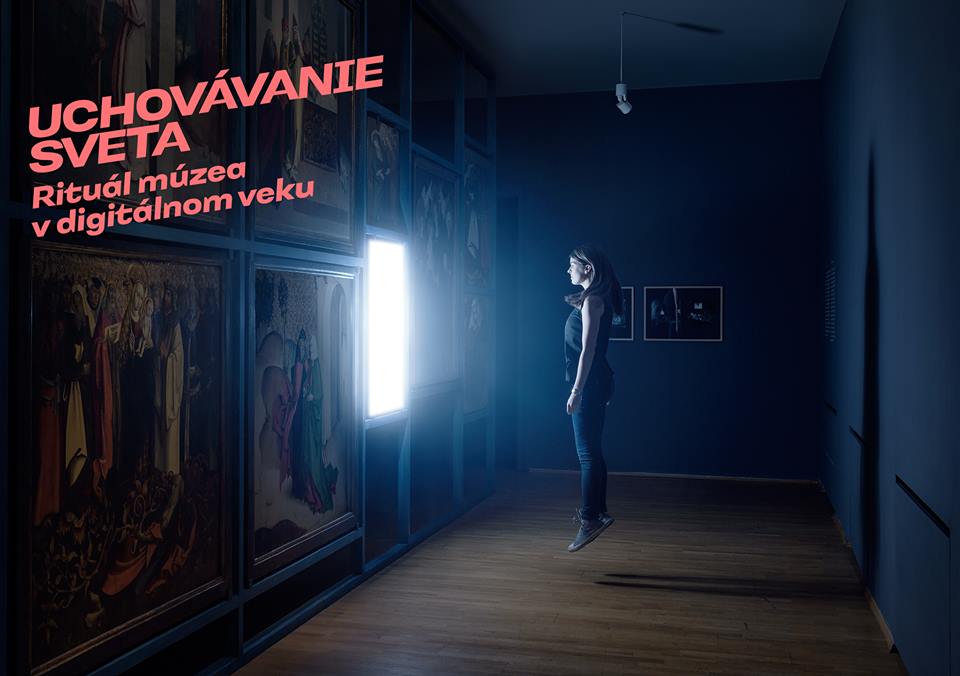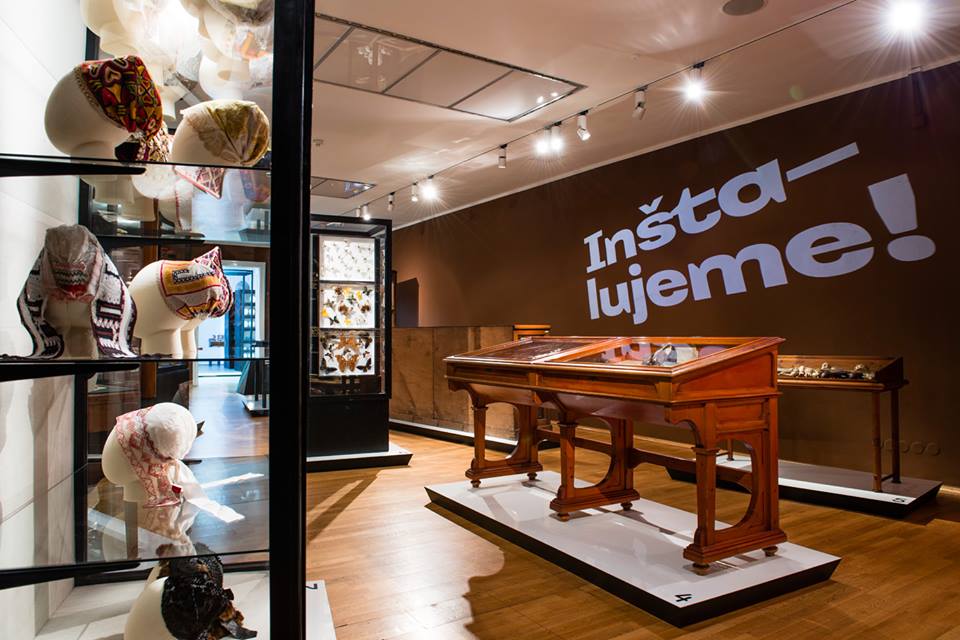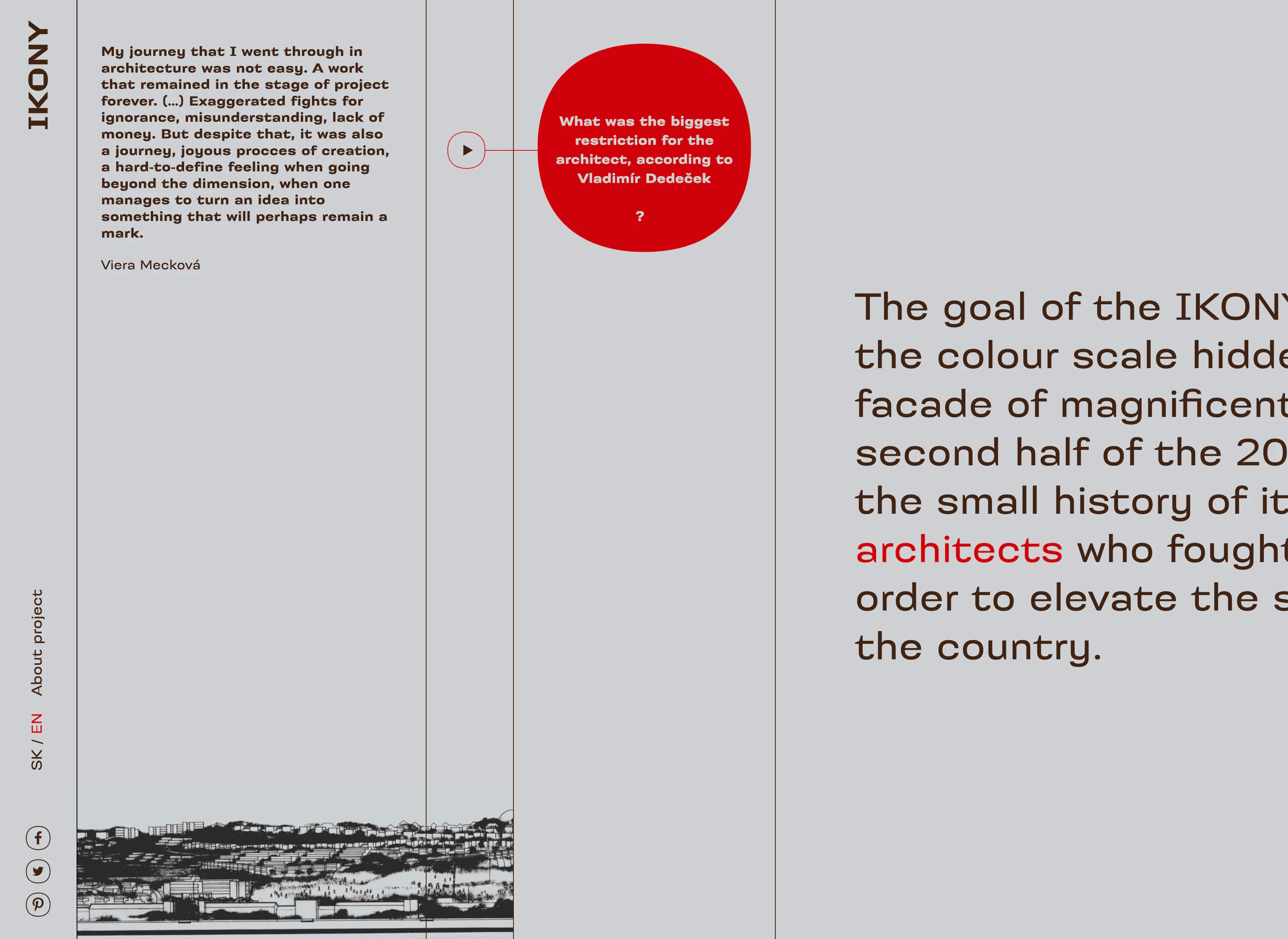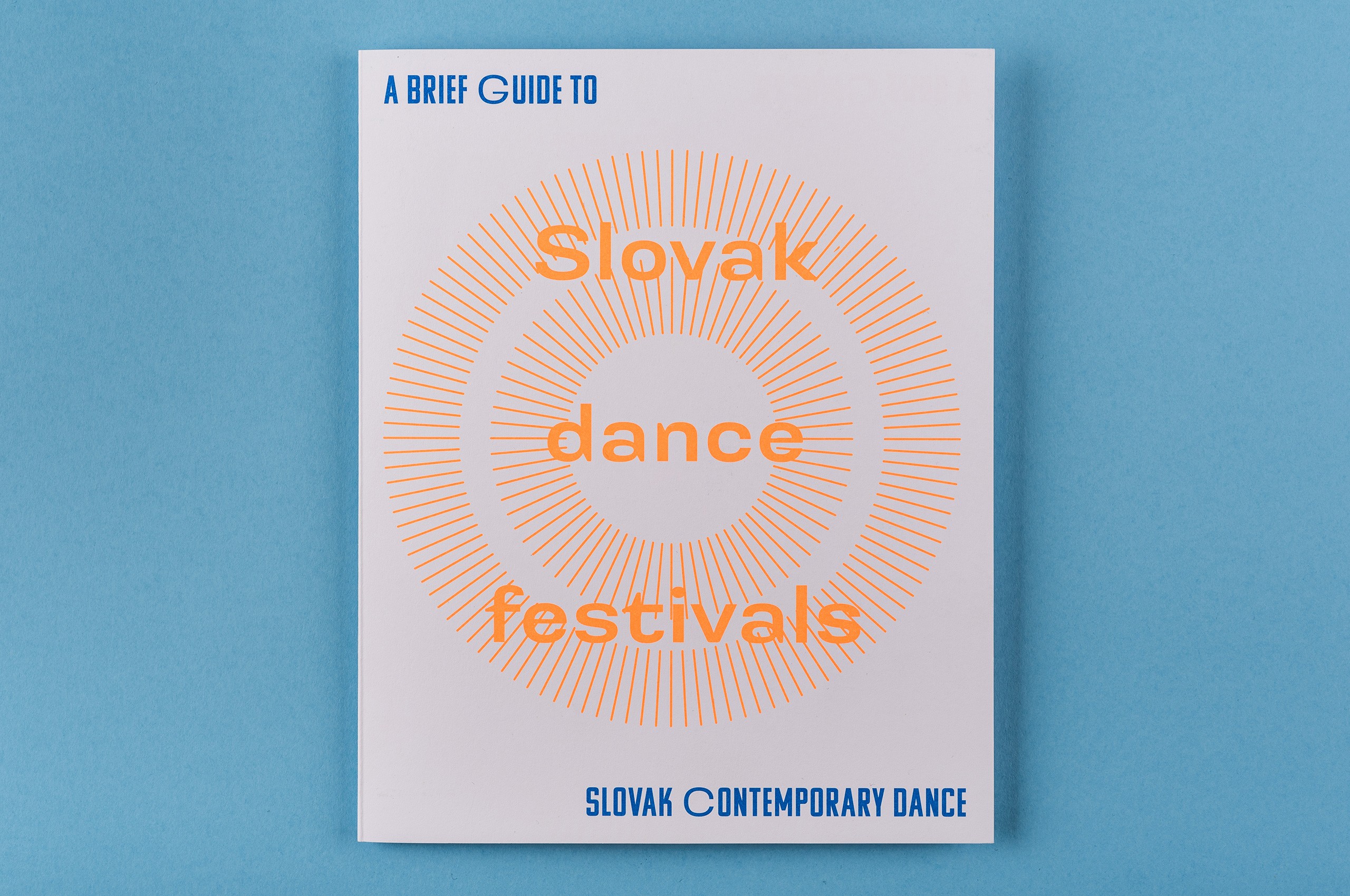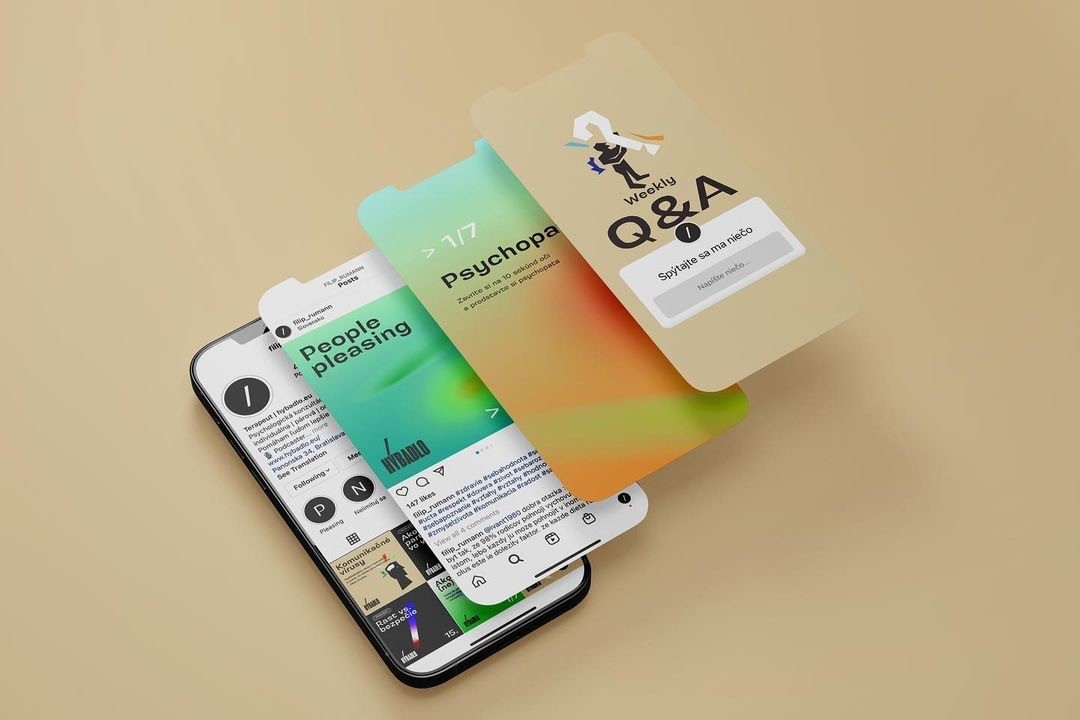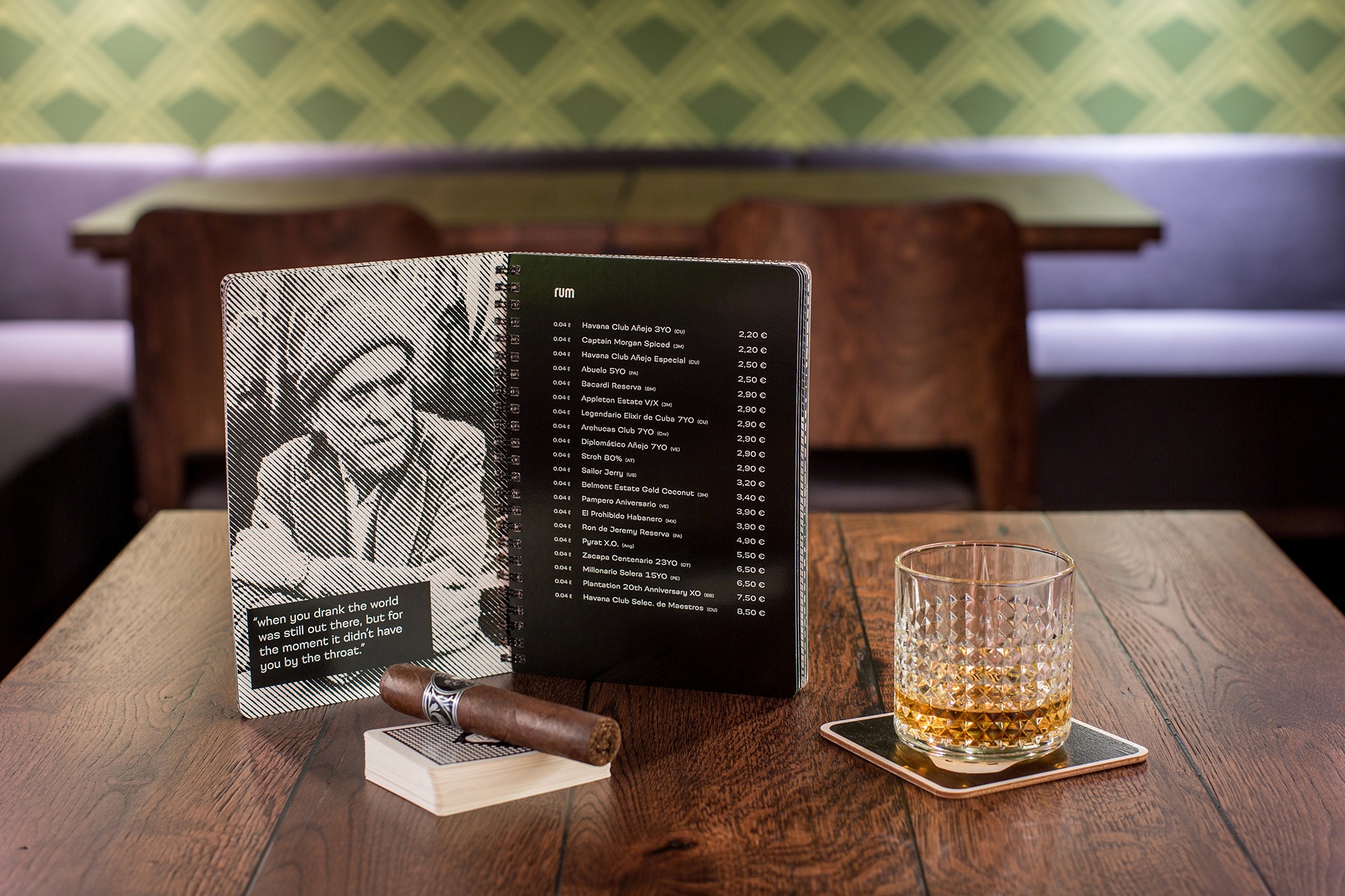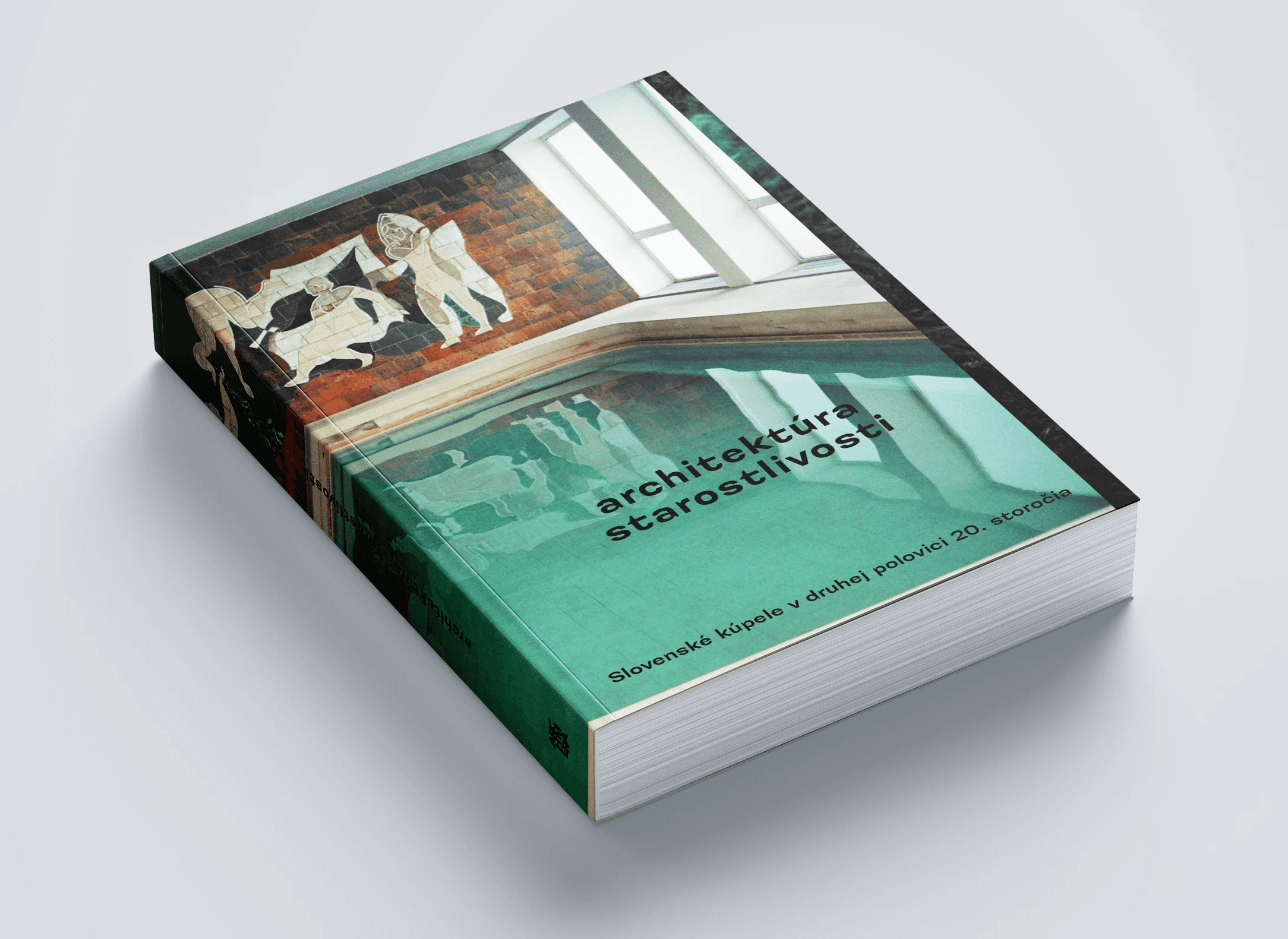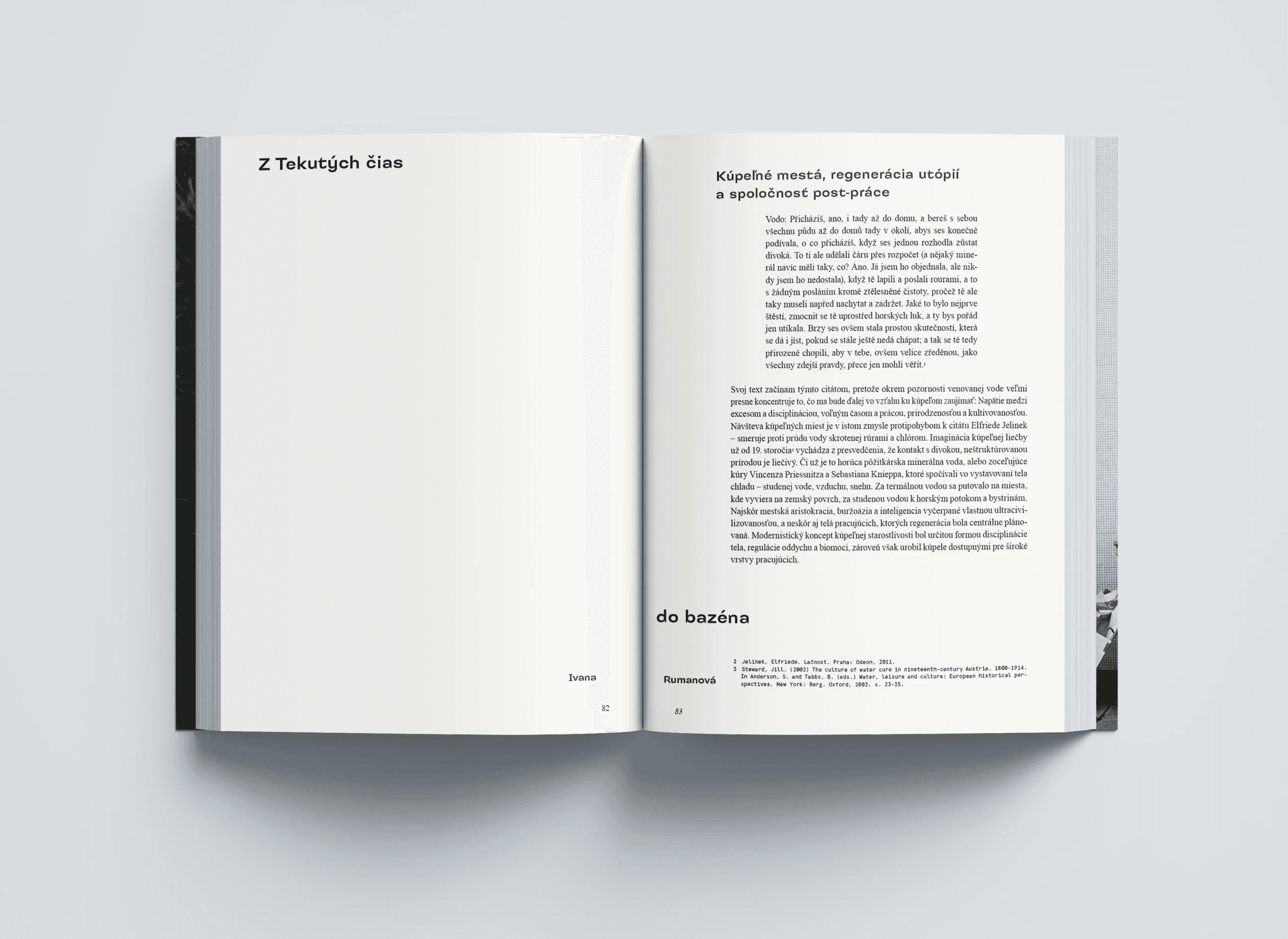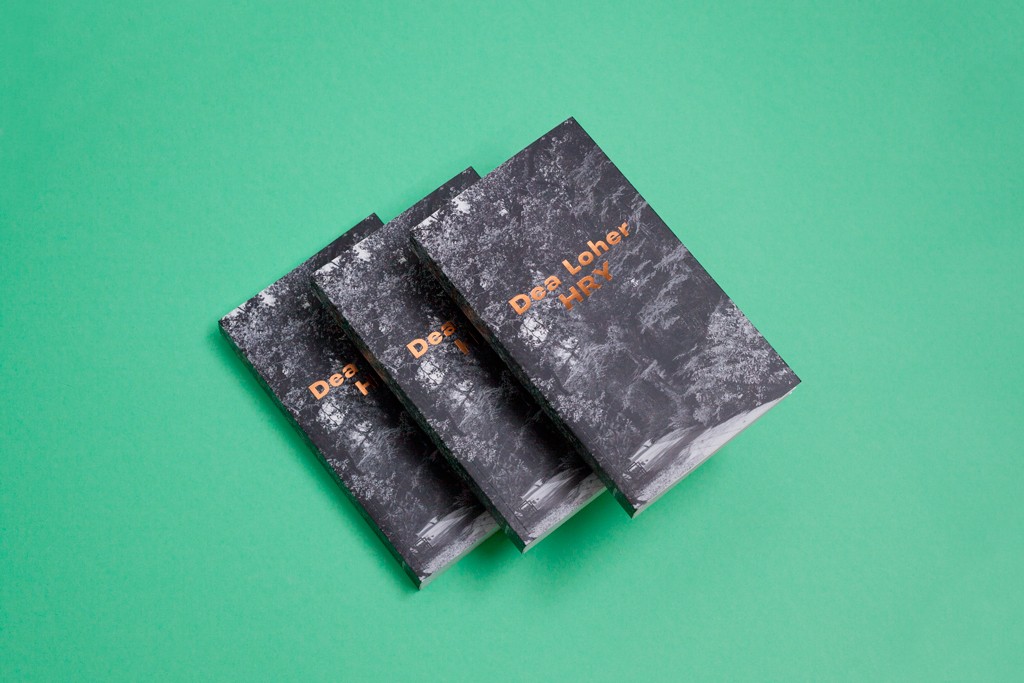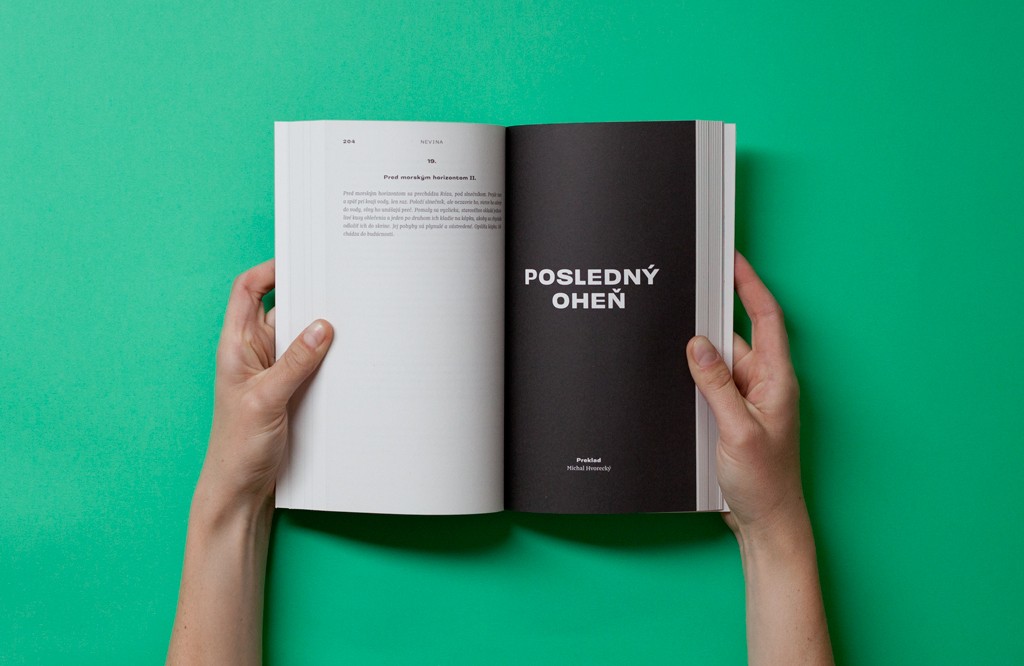
Sans-serif with a
different approach to the contrast
• Kontrast Grotesk typeface in use for the Uchovávanie sveta (Preserving the world) exhibition / Design: Boris Meluš
• Kontrast Grotesk typeface in use for IKONY visual identity / Authors: Lucia M. Tóthová + Slowrat Design
• Kontrast Grotesk typeface in use for IKONY visual identity / Authors: Lucia Tóthová + Slowrat Design
• Kontrast Grotesk typeface in use for IKONY visual identity / Authors: Lucia M. Tóthová + Slowrat Design
• Kontrast Grotesk typeface in use for Slovak Contemporary Dance / Design: Mr. Meadow
• Kontrast Grotesk typeface in use for Hýbadlo visual identity / Design: Michal Slovák
• Kontrast Grotesk for Bar Bukowski. / Visual identity Braňo Bezručka / photos Lukáš Moravský
• Kontrast Grotesk typeface in use for Architektúra starostlivosti (Architecture of Care) book / Design: Magda Schery
• Kontrast Grotesk typeface in use on the cover of the book titled Hry (Games) / Design: Eva Šimovičová
• Kontrast Grotesk typeface in use on a book spread of Hry (Games) / Design: Eva Šimovičová
• Kontrast Grotesk typeface in use for Kapitál (Capital) website, a magazine focusing on culture and politics. / Web Design: Peter Pozník
• Kontrast Grotesk typeface in use for Kapitál (Capital), a magazine focusing on culture and politics. / Design: Dávid Koronczi
• Kontrast Grotesk typeface in use for the book Hevíz 2090 / Design: Misha Chmelíčková
• Kontrast Grotesk typeface in use for visual identity of Urban Market / Design: Misha Chmelíčková
• Kontrast Grotesk typeface in use for the Uchovávanie sveta (Preserving the world) exhibition catalogue / Design: Boris Meluš
• Kontrast Grotesk typeface in use for the Uchovávanie sveta (Preserving the world) exhibition / Design: Boris Meluš
• Kontrast Grotesk typeface in use for homemade alcoholic drink Griotka
• Kontrast Grotesk typeface in use for ATÚ workshop visual identity / Design: Lucia Tóthová
• Kontrast Grotesk typeface in use for Štvorec vs Kruh (Square vs. Circle) – Ikony documentary series / Design: Lucia M. Tóthová
About Kontrast Grotesk Typeface
Sans-serif
with a different approach to the contrast
Kontrast Grotesk represents a contrast in type design based on a different principle. It was inspired by W. A. Dwiggins and his experiments with the stroke variations. Contrast in this typeface is created not only with the influence of the writing tool (the thickness of horizontal strokes in relation to vertical), but by setting the primary and secondary construction strokes of the characters (e.g. glyph "E").
The grotesque types are usually with no or minimal contrast. Having the contrast has created a new and original look of this typeface without compromising the legibility. The fonts are designed for fluent reading on the screen. A little wider proportions are specially welcome with no need for saving a space as it is in printed media.
Kontrast Grotesk family consists of five weights, with italics, small caps and italic small caps. Fonts contains a range of opentype features.
Sans-serif, Text, Screen